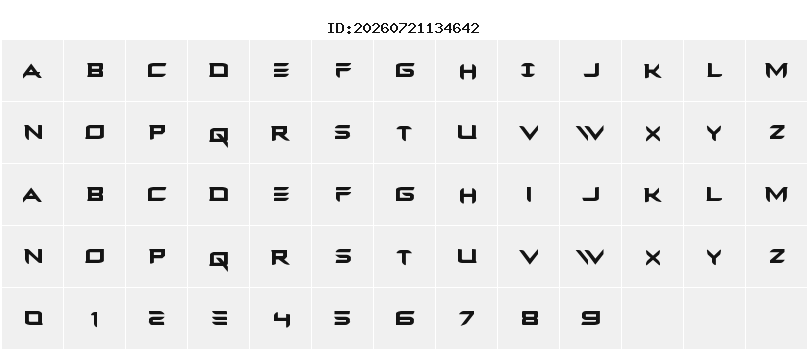
• Font Name: Ferret Face Bold
• Full Font Name: Ferret Face Bold
About Ferret Face Bold.ttf
Ferret Face Bold.ttf is a modern, elegant sans-serif font designed for ultimate readability and visual harmony. Perfect for branding, headlines, web design, and print materials.